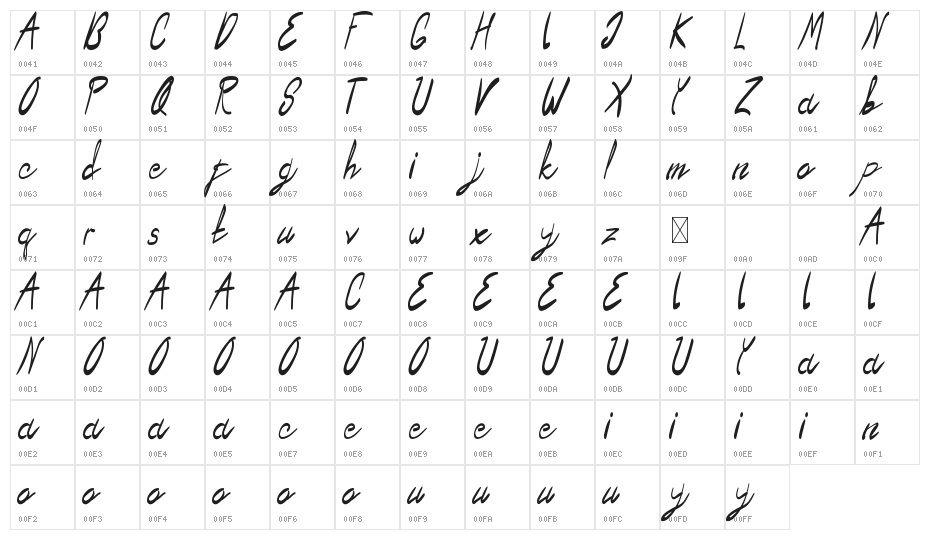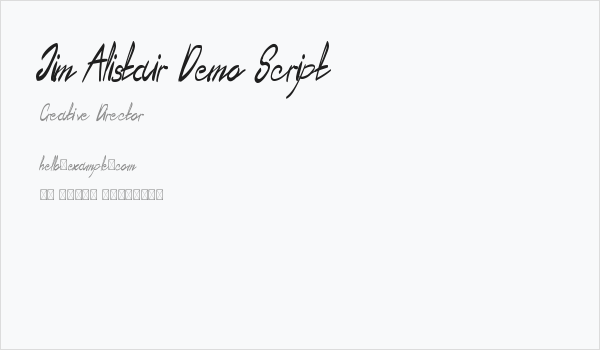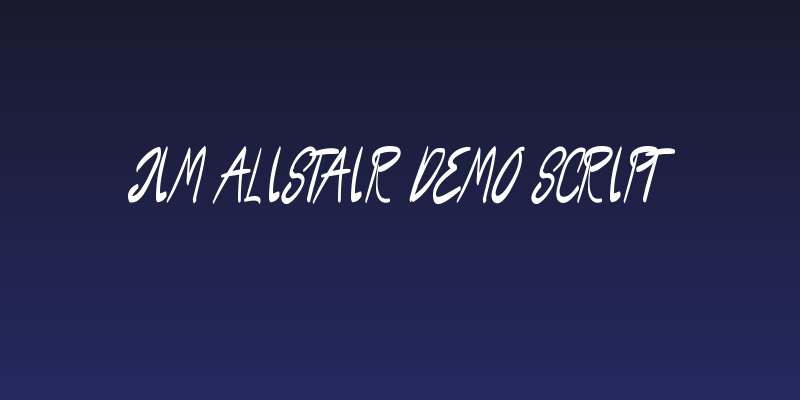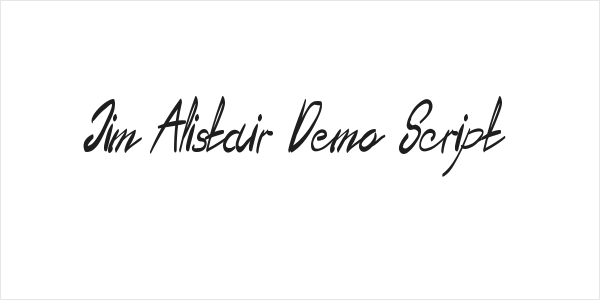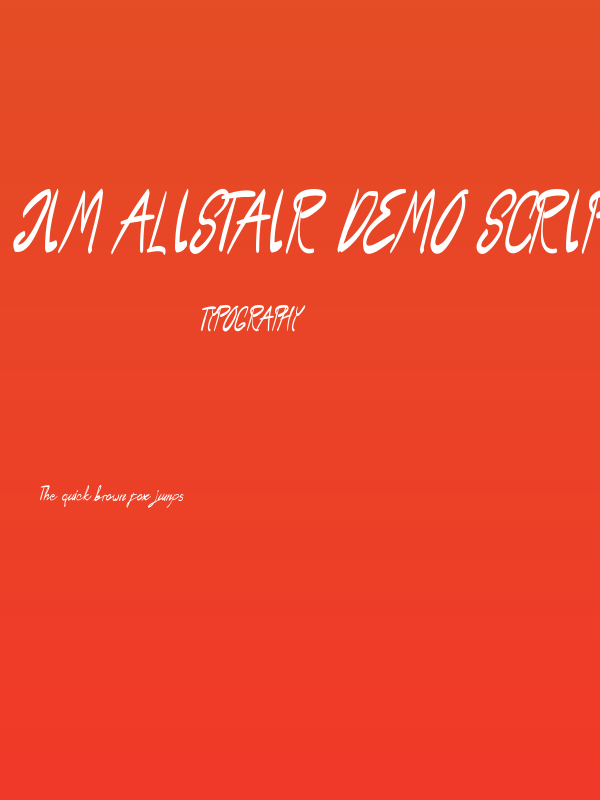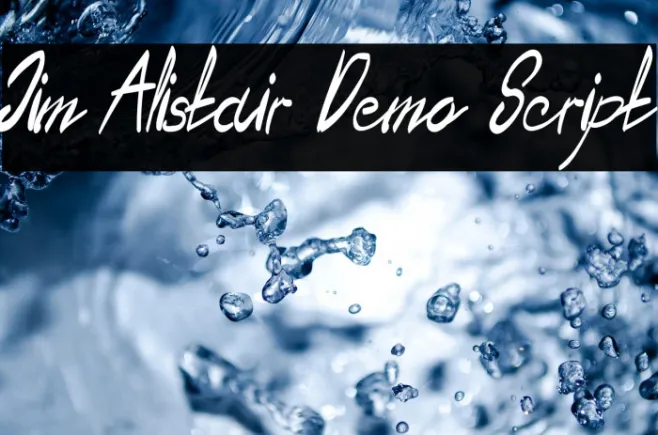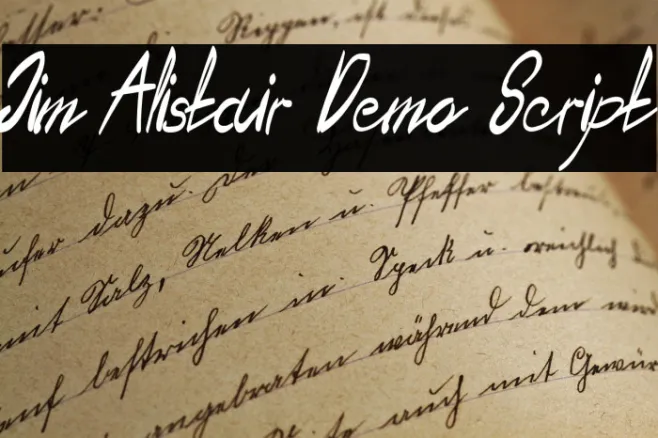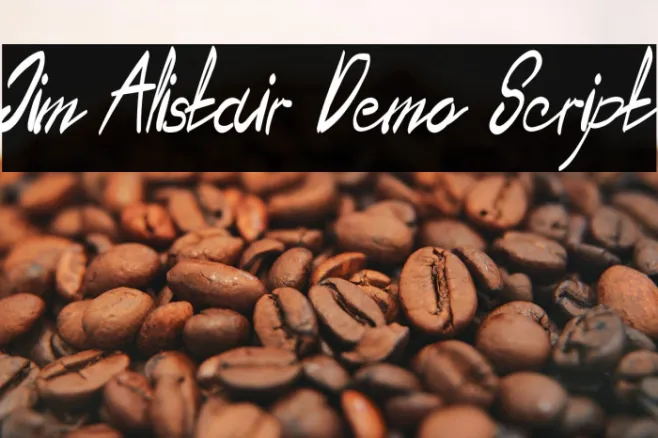
Jim Alistair Demo Script Font
Jim Alistair Demo Script Description
This font features a dynamic and expressive script style, characterized by its fluid and cursive letterforms. The strokes are bold and confident, with a slight slant that adds to its energetic appearance. The uppercase letters are tall and commanding, while the lowercase letters maintain a consistent flow, enhancing readability despite the script nature. The font's unique personality is evident in its playful loops and curves, making it ideal for creative and artistic projects. Its overall design is both modern and timeless, suitable for a variety of applications.
| Proposed Projects | Ideal for branding, invitations, greeting cards, and artistic projects that require a personal touch. |